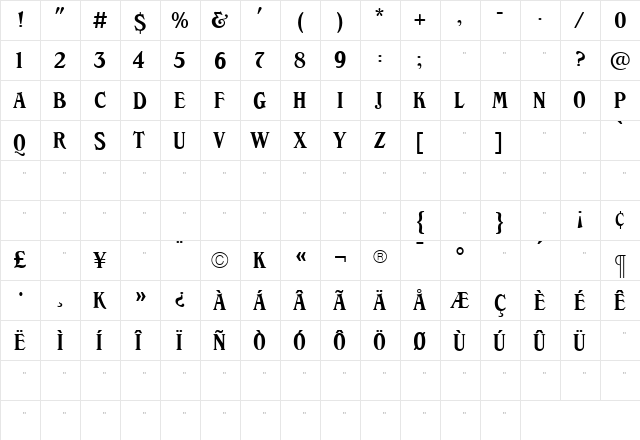
SycamoreLight Roman
Design Context for SycamoreLight Typeface
SycamoreLight takes a measured approach to typography — its balanced proportions and neutral character make it a reliable workhorse for both digital and print work. Its slender proportions lend an understated elegance to any composition.